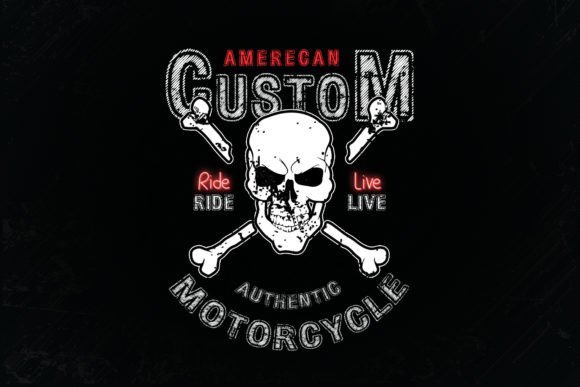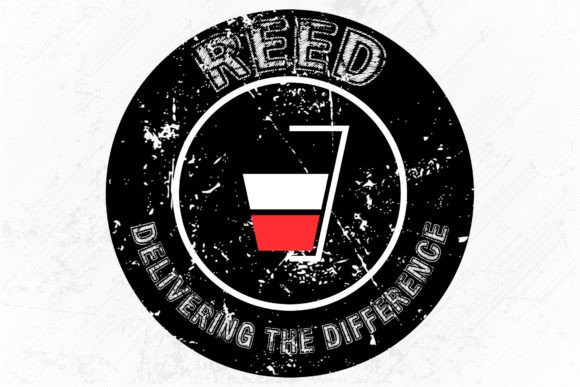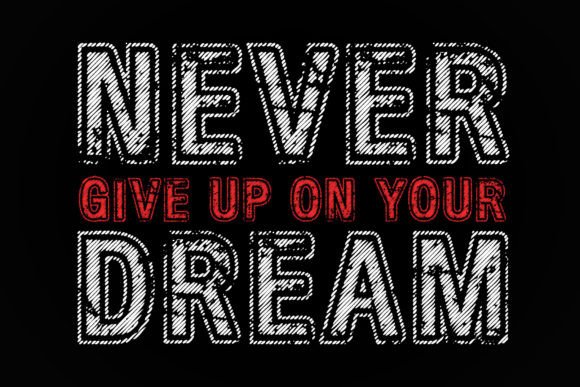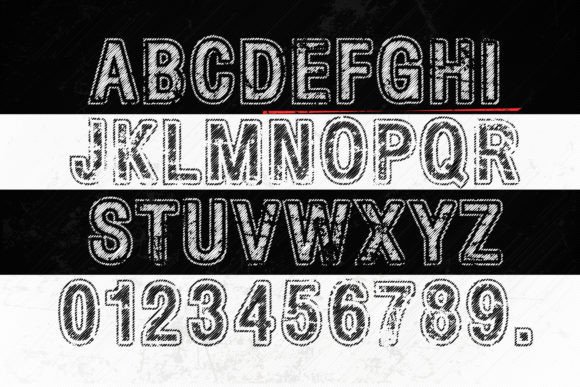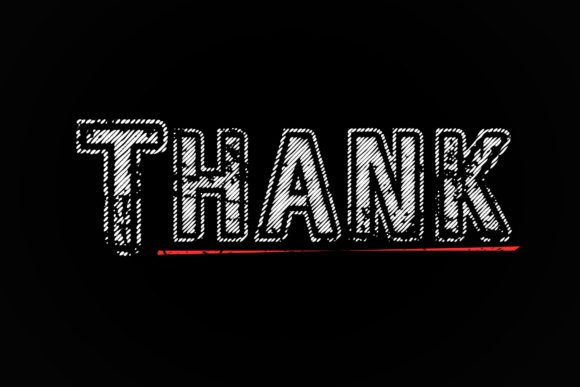
Unleash Your Creativity with Big Grunge Font
Have you ever stared at a blank canvas, waiting for inspiration to strike? You know, that moment when the perfect font can make all the difference between a good design and a great one. For me, it’s like finding the perfect key to unlock a hidden world of creativity.
That’s where Big Grunge Font comes in – a sport display font with a heavily distressed texture that’s perfect for adding a touch of ruggedness to your designs. Whether you’re working on a project that needs a bold statement or a subtle nod to the grunge era, this font has got you covered. With its versatility and edgy vibe, Big Grunge Font is an incredible asset to any designer’s library, elevating any creation to new heights.
Key Features of Big Grunge Font
- Font Family: Big Grunge Font is a distressed, grunge-inspired font family.
- Unique Characteristics: Distressed texture, worn edges, and a weathered look that resembles a vintage, worn-out font.
Designer Review: Big Grunge Font
As a designer, I was excited to dive into the Big Grunge Font and see if it lived up to its name. Overall, I was pleasantly surprised by its unique charm and character.
- The font’s distressed texture adds a layer of depth and visual interest, making it perfect for designs that require a bit of edge.
- The bold, chunky lines give the font a rugged feel that’s reminiscent of the grunge movement.
- The font is highly customizable, allowing designers to tweak the texture, color, and spacing to suit their specific needs.
- The font’s readability can be affected by its distressed texture, making it challenging to read in certain contexts.
- The font may not be suitable for designs that require a clean, minimalist aesthetic.
- The font’s bold lines can be overwhelming in certain layouts, so it’s essential to use it judiciously.
Overall, the Big Grunge Font is a unique and versatile addition to any designer’s toolkit. While it may not be perfect for every project, its charm and character make it a great choice for designs that require a bit of attitude and edge.
Big Grunge Font is perfect for:
- Music and art posters.
- Alternative and grunge-themed designs.
- Edgy and avant-garde typography.
- Rock and roll-inspired